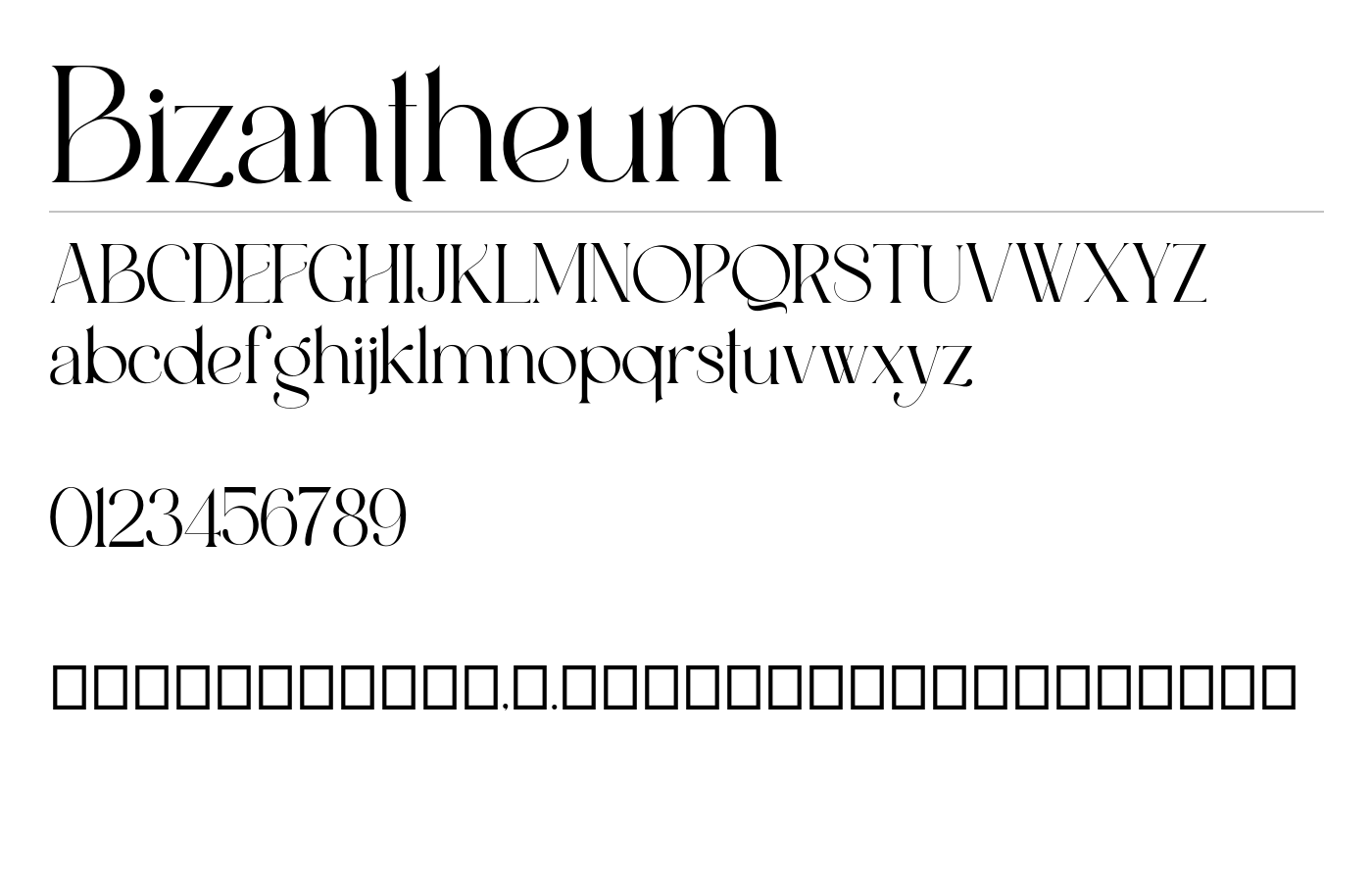
Bizantheum is an elegant serif font with a modern, high-contrast design characterized by its thin, sharp strokes and unique, stylized letterforms. It features slender serifs and distinctive details like the curved tail on the Q and finely tapered terminals, making it ideal for luxury branding, editorial headlines, and sophisticated logo design where a refined, artistic touch is desired. This font’s delicate balance of classic serif structure and contemporary flair communicates a sense of elegance and exclusivity.
Bizantheum Font